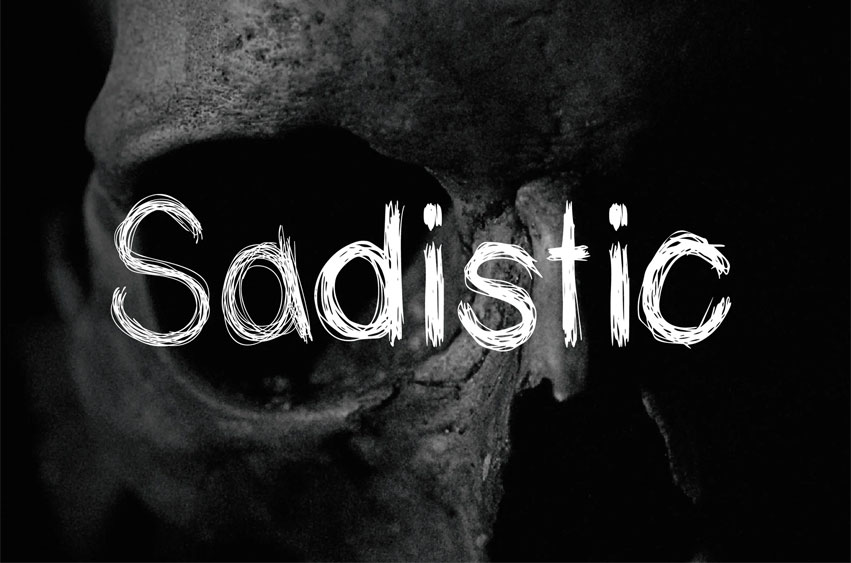
Sadistic Font
Sadistic Font Horror handwritten font ideal for Halloween and Scary Evil Stuff.
This font is well-suited for a variety of contexts, such as print design, promotional materials, or magazine layouts.